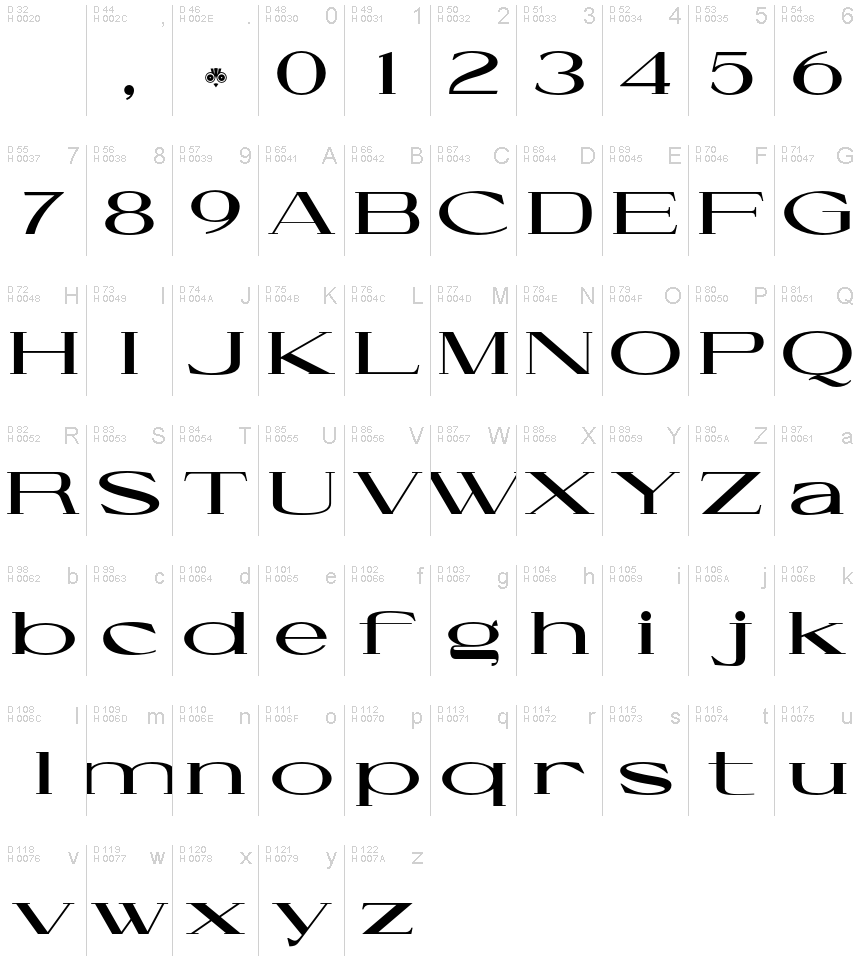
Cellofy ExtBlk ExtExp font from the Cellofy family, crafted by Owlking Project, is a striking serif typeface. With its expanded width and bold curves, this font embodies elegance and sophistication. Its distinctive style balances classic serif elements with a modern flair, making it perfect for eye-catching headlines and design projects that demand attention.
Ideal for branding campaigns, luxury magazines, and editorial layouts, this free font for personal use offers designers both versatility and impact.
Cellofy ExtBlk ExtExp
Extra Black Extra Expanded